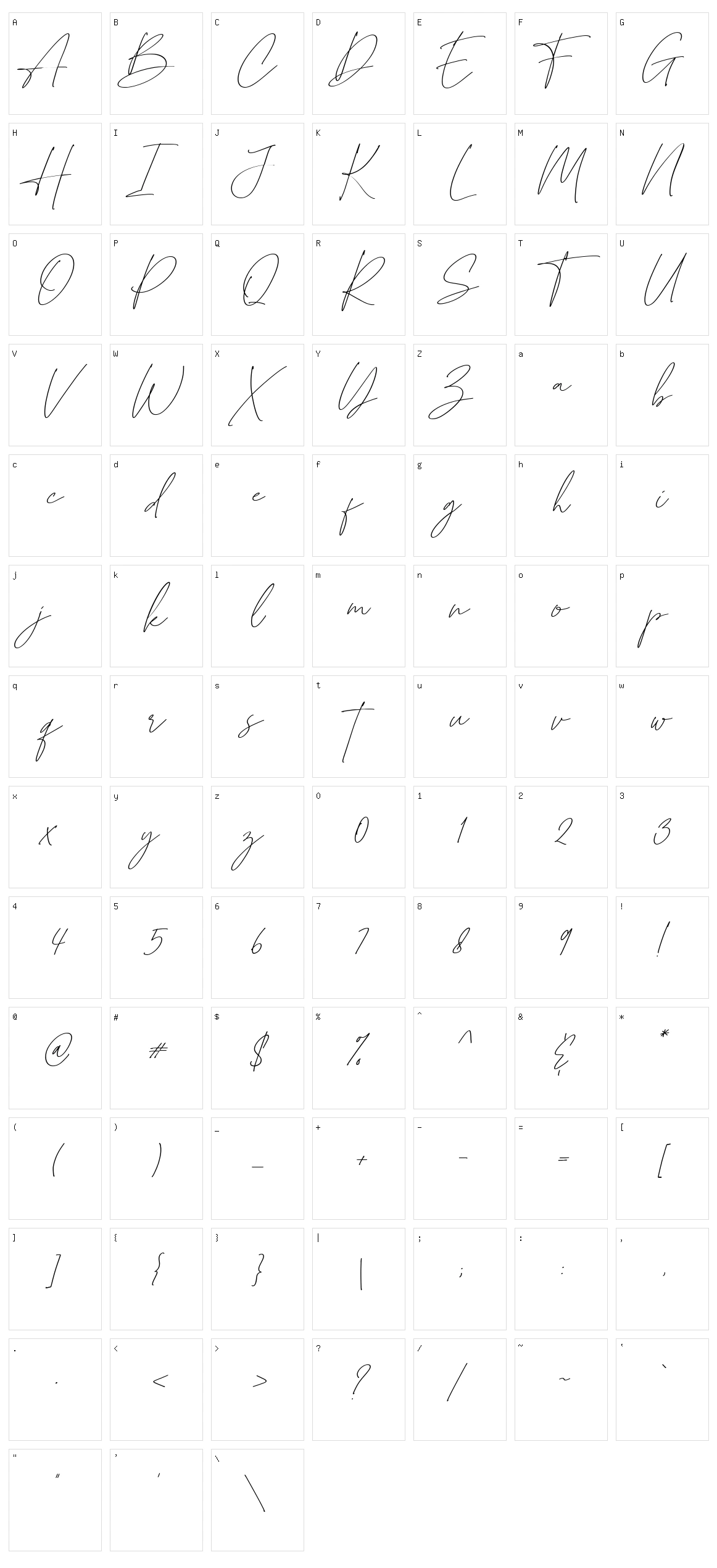
Brittish Shorthair Script. Made from natural pen.
it will make your design project more beautiful.
The font is suitable for any design like branding, logo, tagline, fashion,
print template, quotes, wedding and etc.